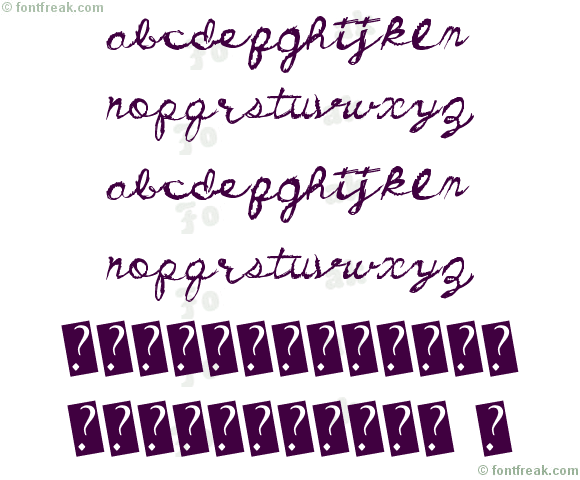
DirtyCursive
DirtyCursive by XEROGRAPHER FONTS is a captivating handwritten script font that exudes an artistic flair, making it a standout choice for various design projects. This font features a playful yet informal style, characterized by its uneven stroke weight and organic, flowing forms. The letters have a casual, almost carefree appearance, enhanced by their slight slant and varied spacing, which contributes to a sense of spontaneity and authenticity. The font's decorative elements, including whimsical loops and curves, add to its charm, making it an ideal option for creative applications.
Best suited for use cases such as wedding invitations, greeting cards, restaurant menus, and event posters, DirtyCursive brings a personal touch to any text. Its unique style can evoke emotions, making it perfect for projects that aim to create a warm and inviting atmosphere. Whether you're a graphic designer working on a client project or a small business owner looking to enhance your branding, this font can elevate your designs and engage your audience effectively.
What truly sets DirtyCursive apart is its ability to combine elegance with a touch of playfulness, making it a versatile addition to any font library. The ease of using this font for various applications ensures that it can be a go-to choice for creatives looking to add a unique flair to their work. For those interested, a DirtyCursive font free download is available, allowing you to explore the enchanting versatility of this font in your designs.